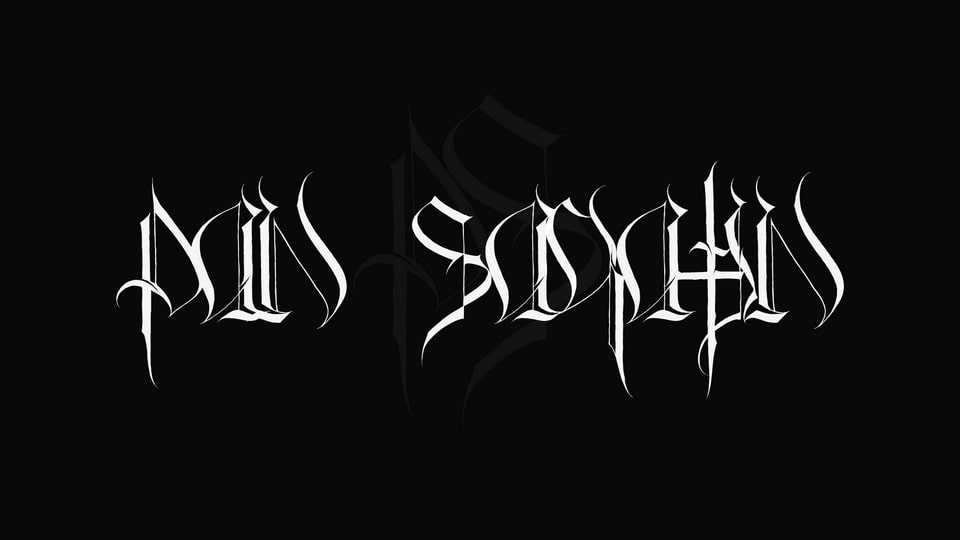
Download Pan Sakatin font, a dissonant and edgy blackletter typeface that delves into the eerie realms of mystery. With sharp angles, unpredictable strokes, and an inky darkness, Pan Sakatin brings an unsettling and mysterious aesthetic to your designs.
Designer: Victor Tkachenko